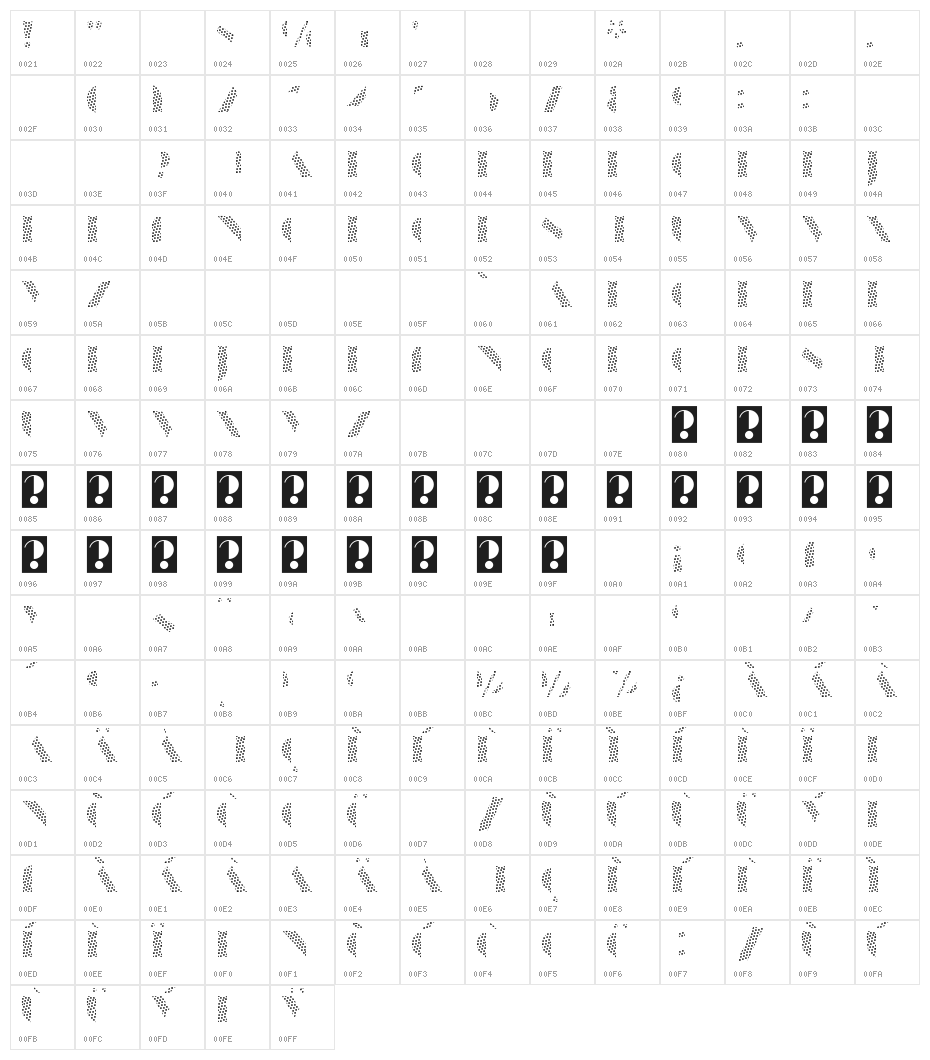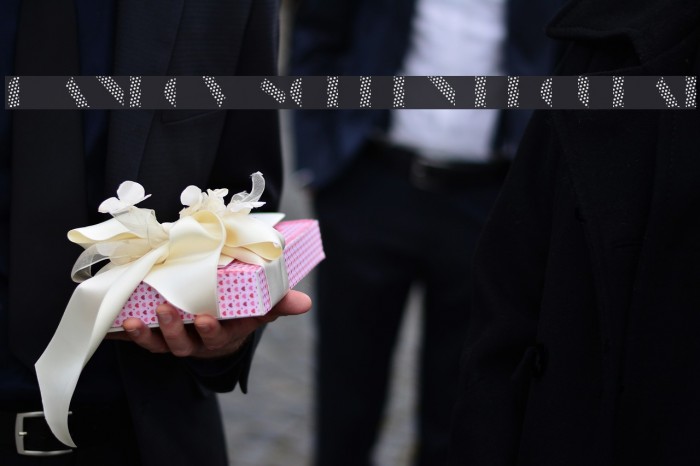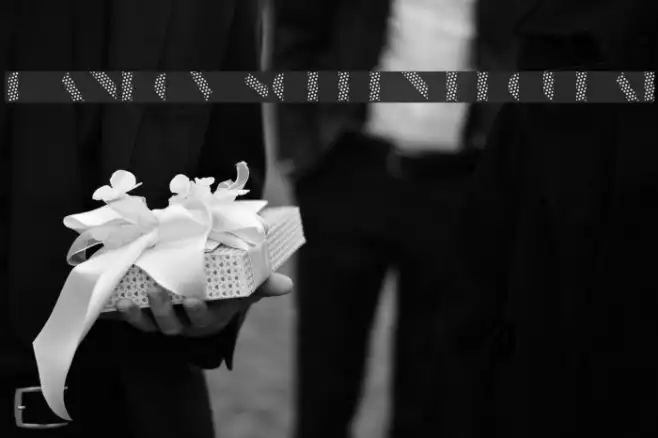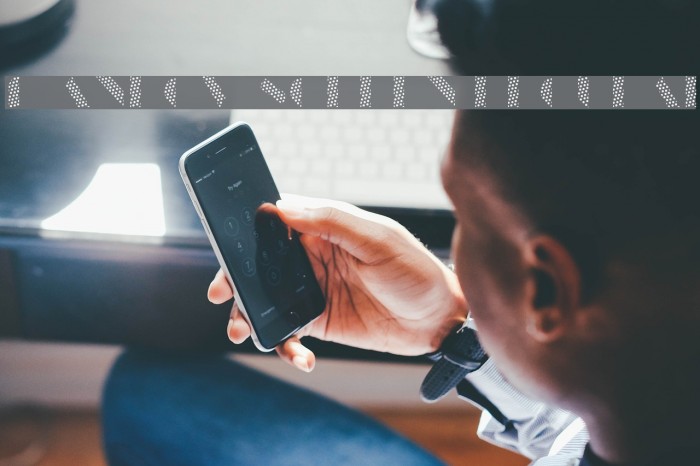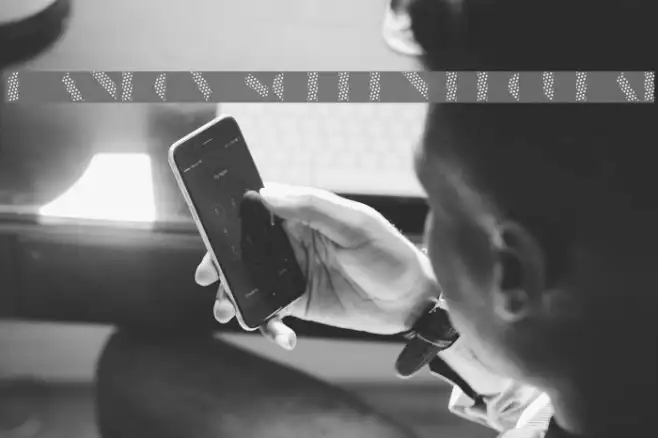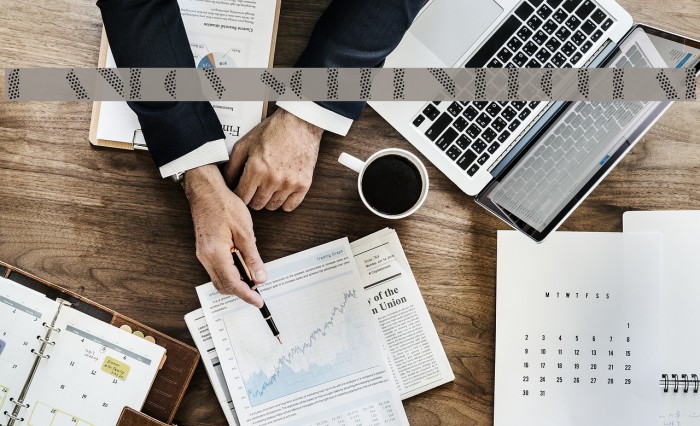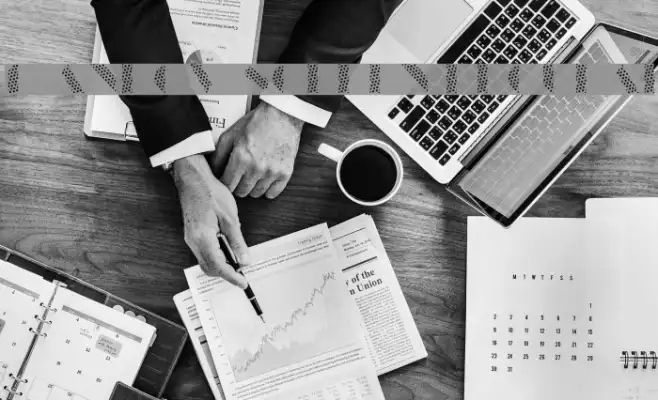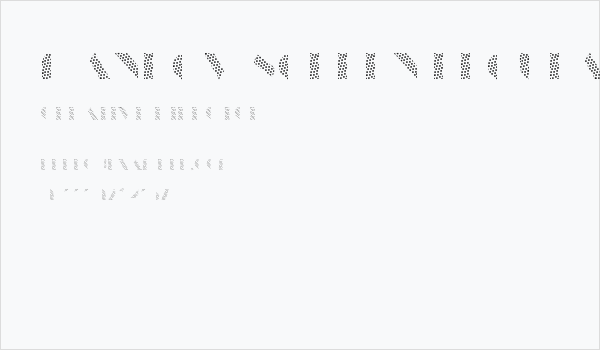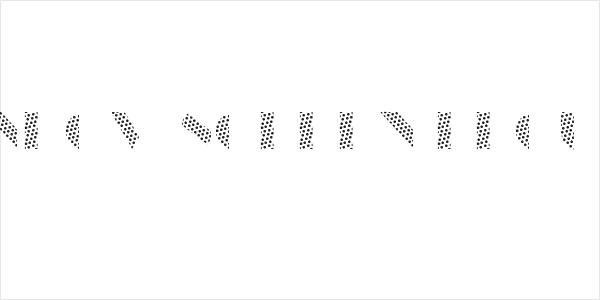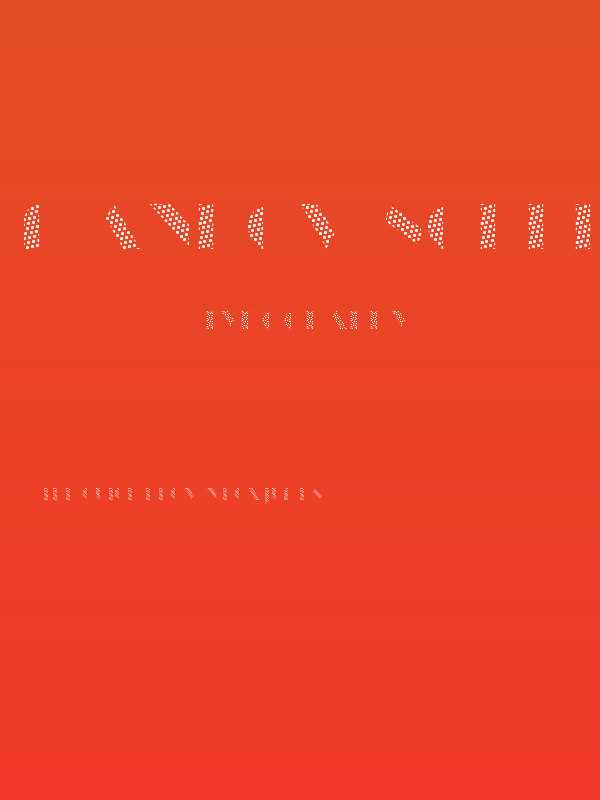
ManbowScreen-Regular Font
ManbowScreen-Regular Description
This font features a unique and eye-catching design composed of small dots forming each character. The letters are bold and have a geometric structure, giving them a modern and playful appearance. The dotted pattern creates a sense of movement and texture, making it stand out in any design. The uppercase and lowercase letters maintain a consistent style, while the numbers and special characters are equally distinct and engaging. This font is perfect for projects that require a bold statement and a touch of creativity.
Proposed ProjectsIdeal for posters, logos, branding materials, and creative digital designs.